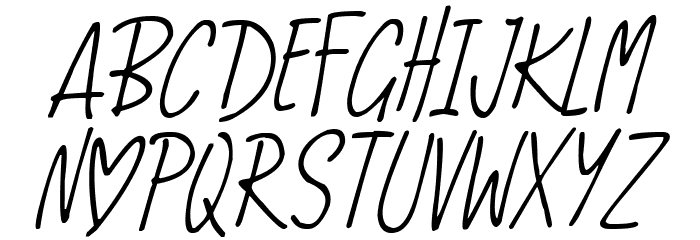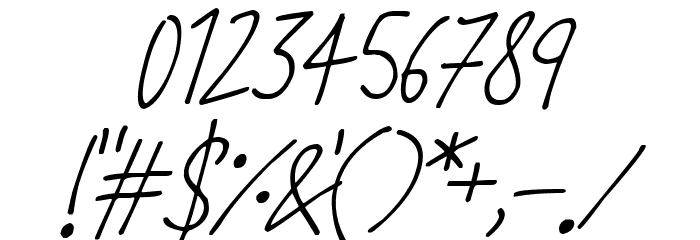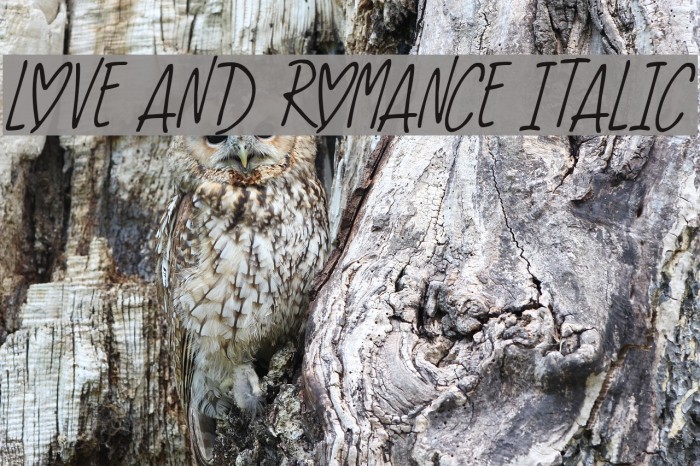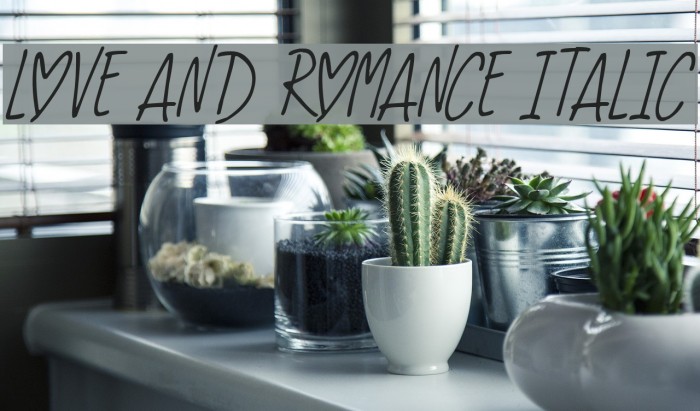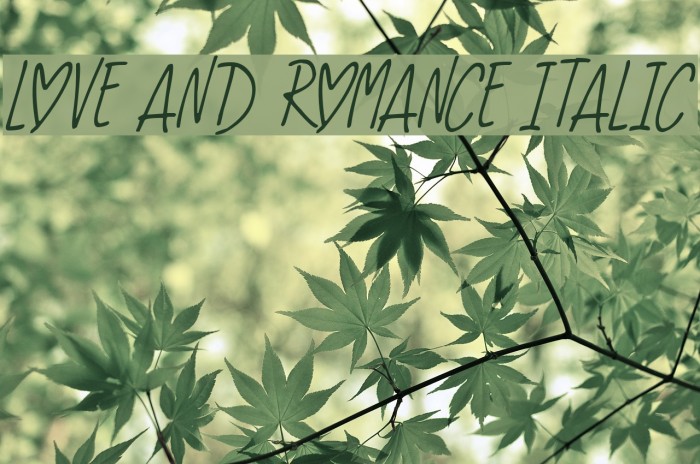
Love And Romance Italic Font
This font features a playful and romantic script style, characterized by its fluid, handwritten appearance. The letters are slightly slanted, adding a sense of movement and elegance. The uppercase letters are bold and expressive, while the lowercase letters maintain a consistent flow. The numbers are well-integrated, matching the overall style of the font. Special characters are creatively designed, with some incorporating heart motifs, enhancing the romantic theme. The strokes are smooth and consistent, providing a harmonious look across all characters.
A playful, romantic script font with a fluid, handwritten style.
- Proposed Projects: Ideal for wedding invitations, love letters, greeting cards, and romantic-themed branding.
- Overall Style: Romantic, Playful
- Use Case: Logos, Invitations, Greeting Cards